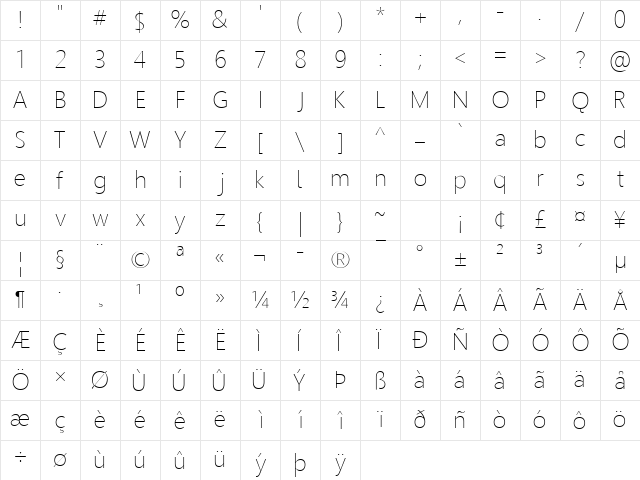
Homizio is a composed and adaptable typeface that performs quietly and consistently across a wide range of design contexts. Its slender proportions lend an understated elegance to any composition.